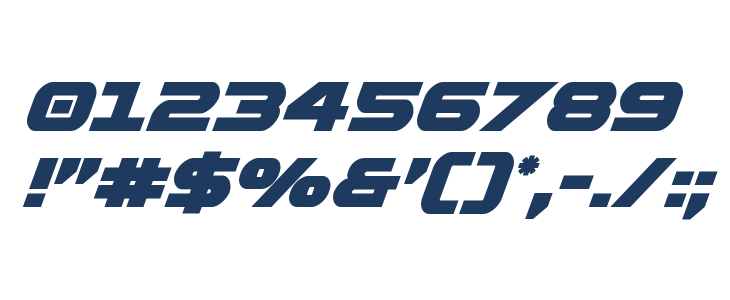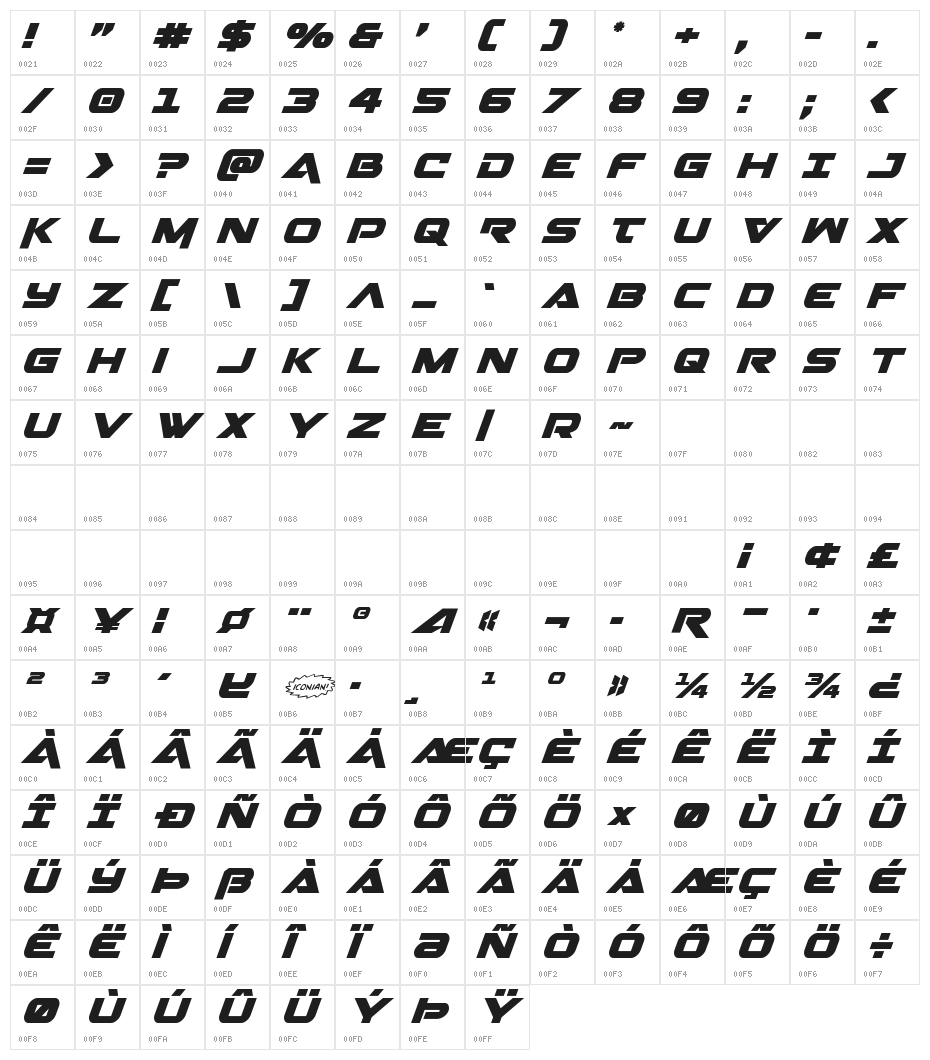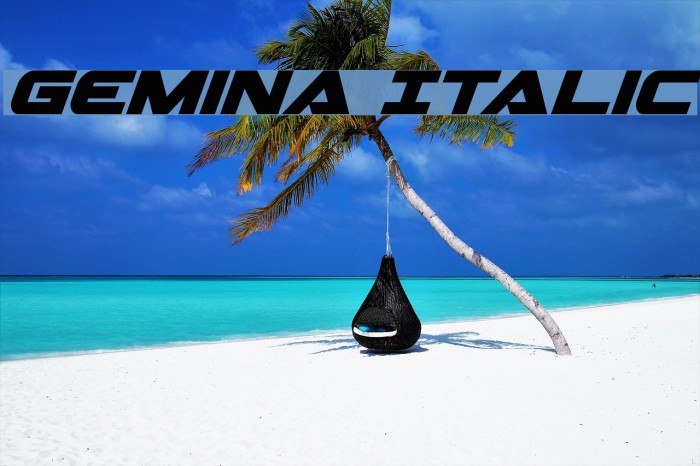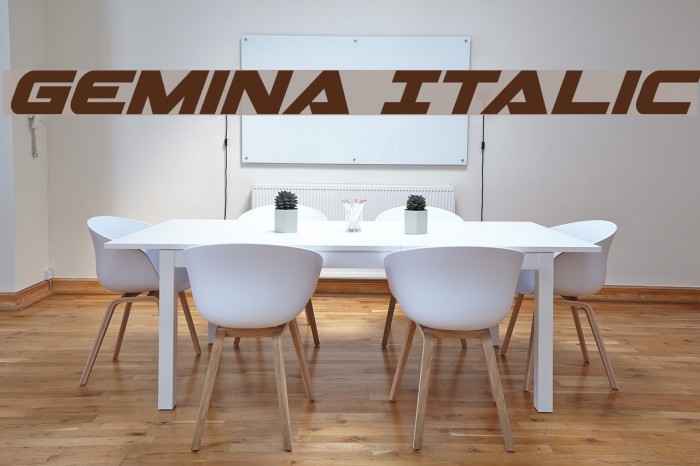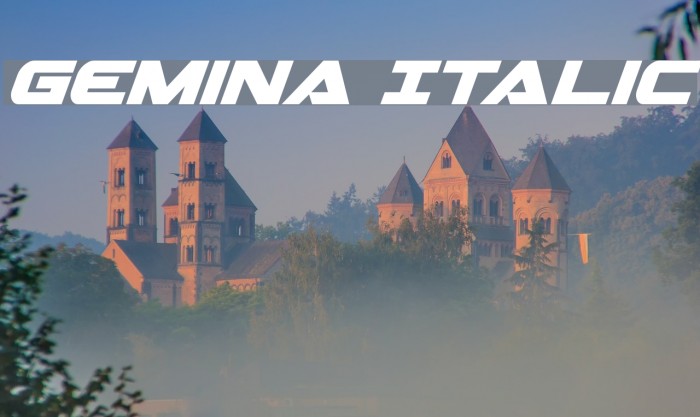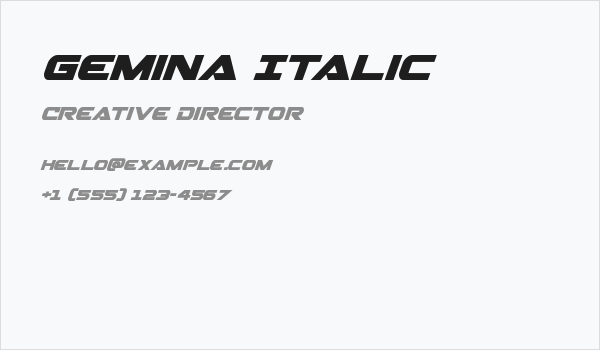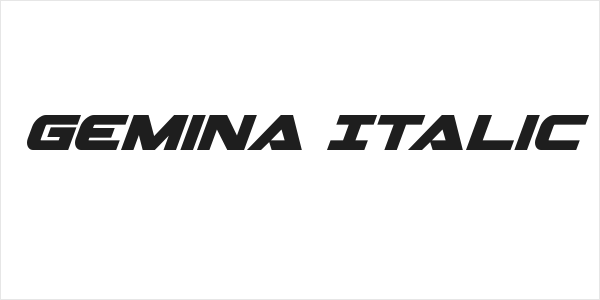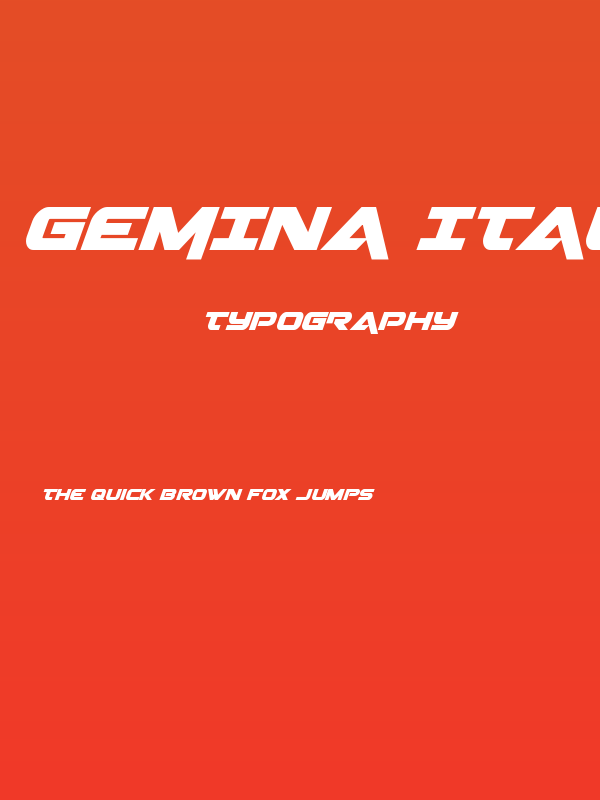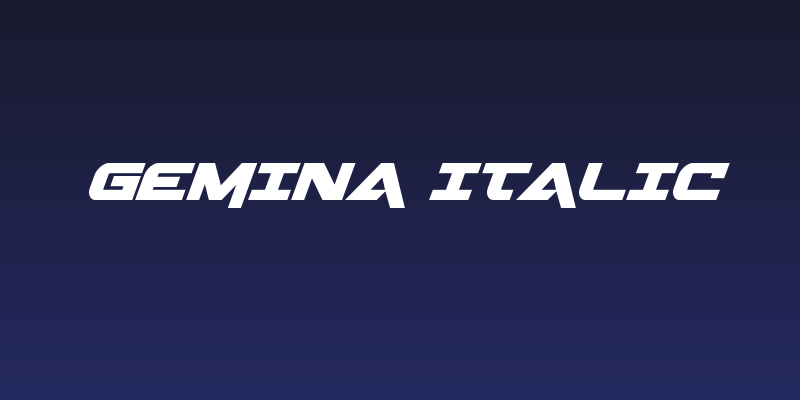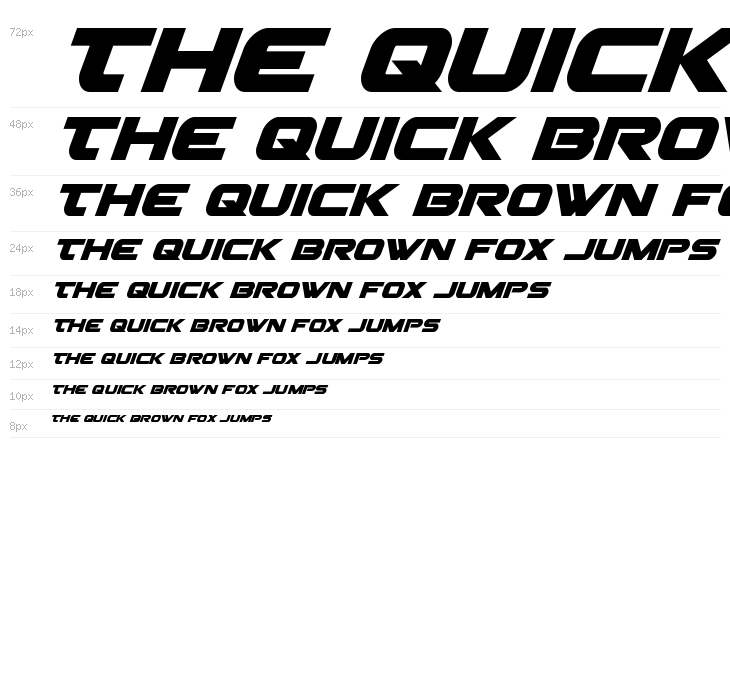
Gemina Italic Font
Gemina Italic Description
This font features a bold, italicized style with a modern and dynamic appearance. The characters are sharply angled, giving a sense of motion and speed. The uppercase letters are particularly striking, with a strong geometric influence that is both sleek and aggressive. The lowercase letters maintain the same angular design, ensuring consistency throughout the typeface. Numbers and special characters are designed with the same boldness and angularity, making them highly legible and visually impactful. This font is ideal for projects that require a strong, modern aesthetic.
| Use Case | Logos, Headlines, Branding |
| Proposed Projects | Ideal for sports branding, automotive designs, tech logos, and dynamic advertising campaigns. |